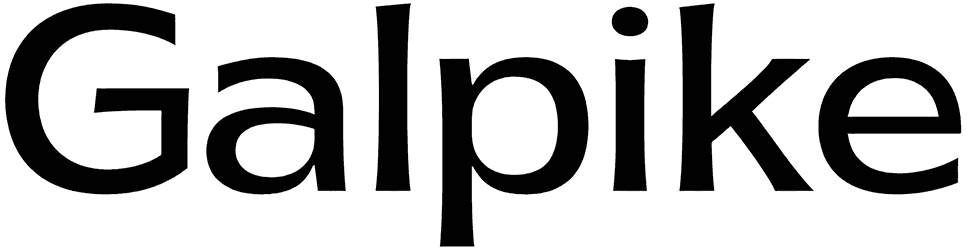
Galpike Font
If you use this unique modern font for your project, it will beautifully reflect a different professional vibe. The humble visual of this sign font can become a captivating part of your layout. Let’s test the Galpike font for your new technology advertising or the like and see how amazing the final showcase will be.